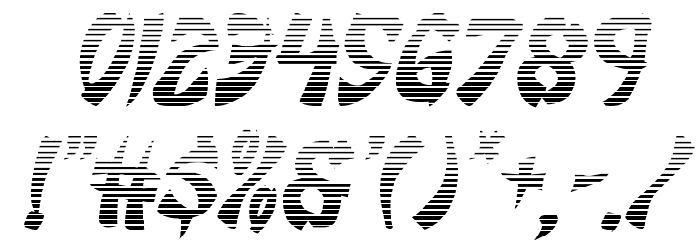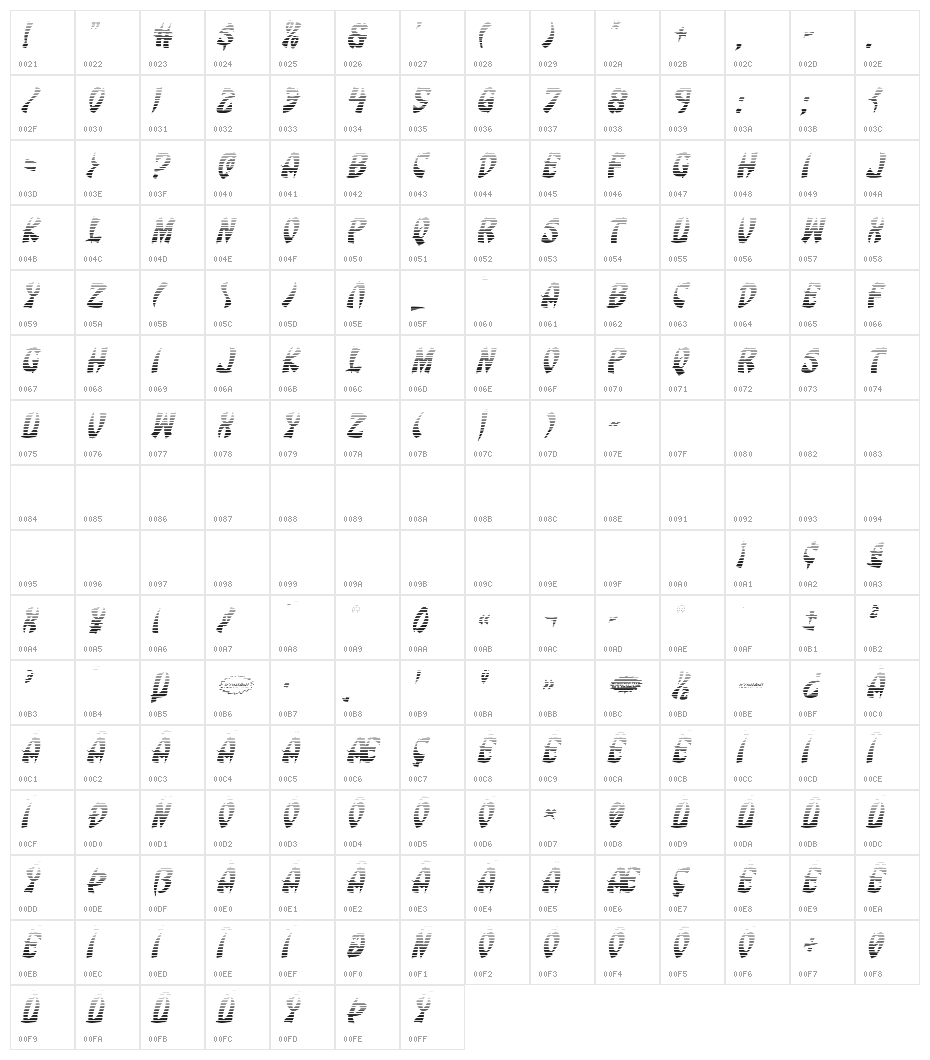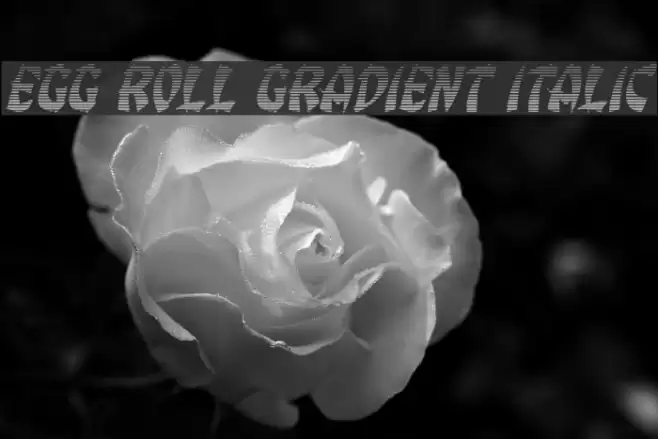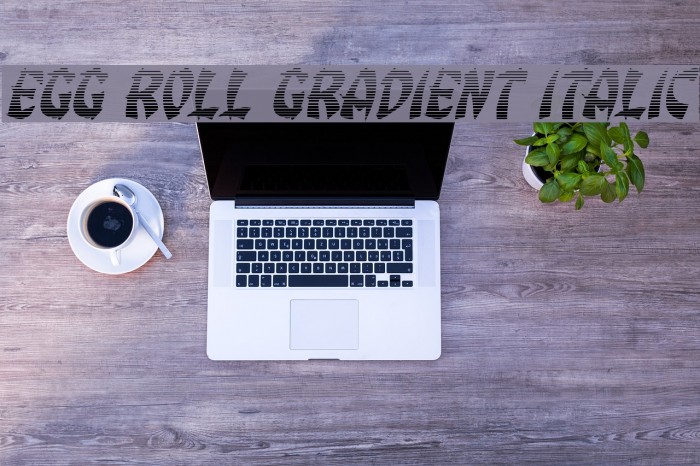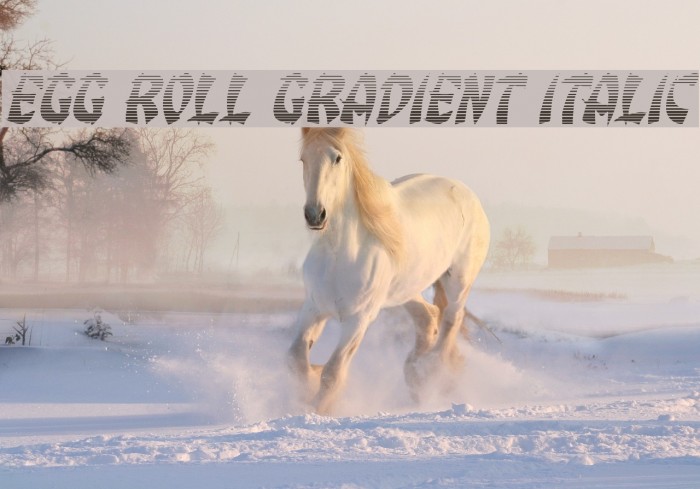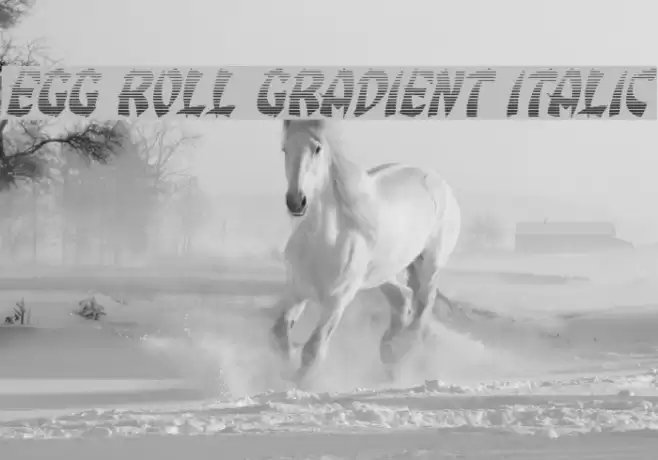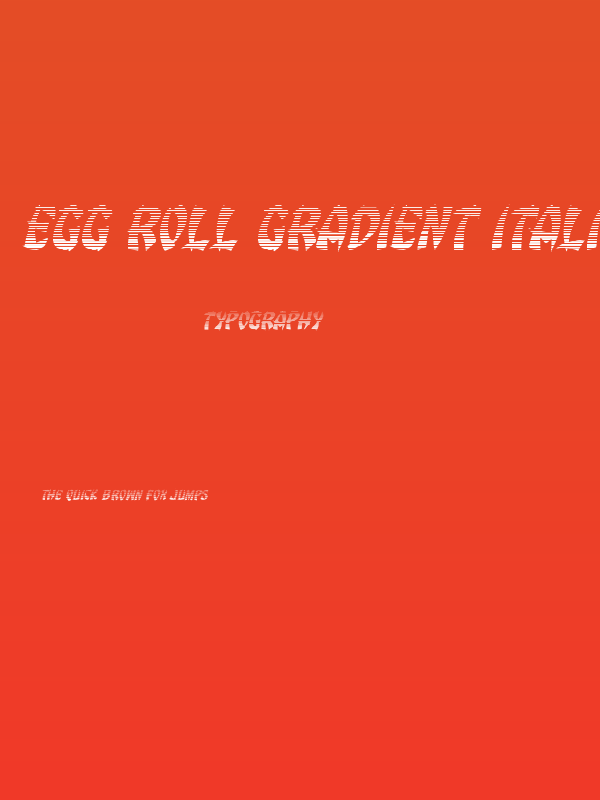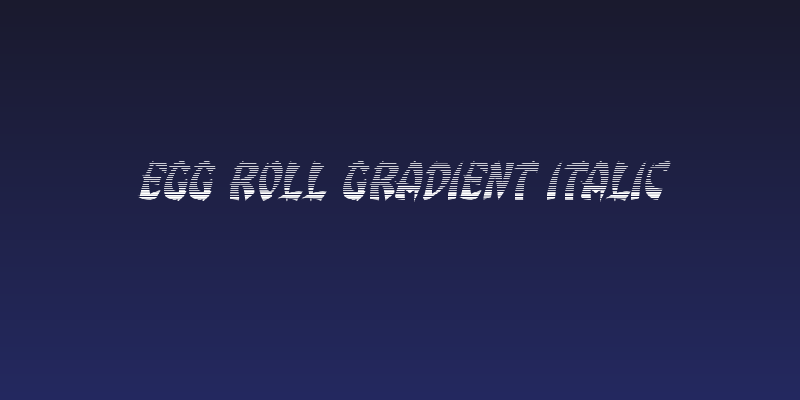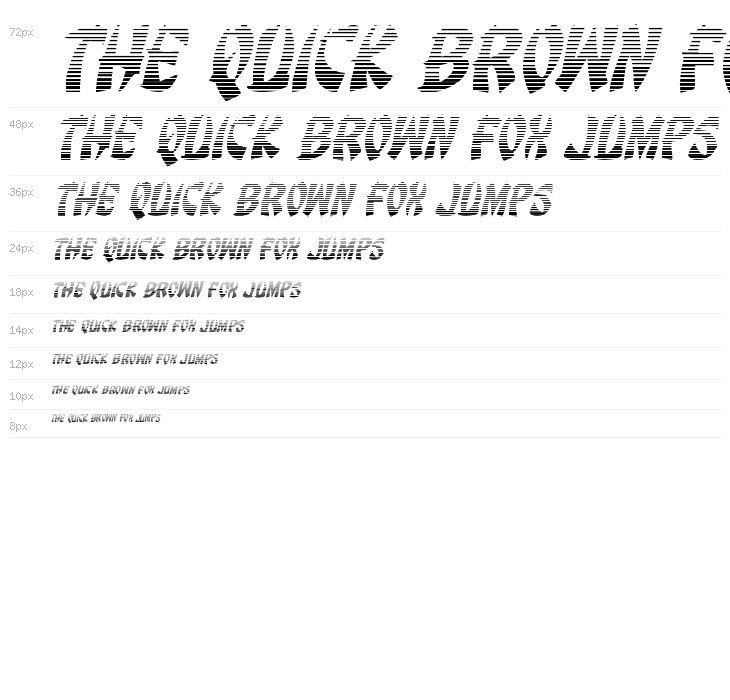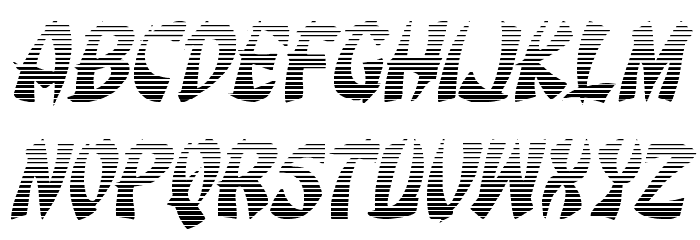
Egg Roll Gradient Italic Font
Egg Roll Gradient Italic Description
This font features a dynamic, slanted design with a gradient effect created by horizontal lines that give it a sense of movement and energy. The characters are bold and italicized, with a playful and modern aesthetic. The uppercase and lowercase letters maintain a consistent style, while the numbers and special characters complement the overall look. The gradient effect adds a unique texture, making it suitable for eye-catching designs.
| Proposed Projects | Ideal for posters, branding, and digital artwork where a bold statement is needed. |